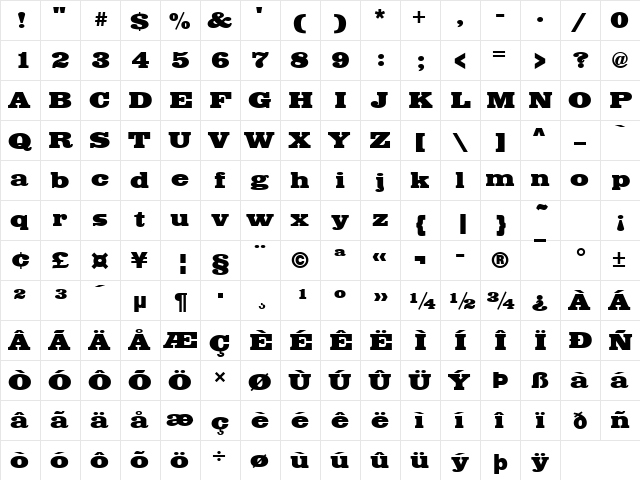
EgyptienneDBolExt Regular
Design Context for EgyptienneDBolExt Typeface
EgyptienneDBolExt is a composed and adaptable typeface that performs quietly and consistently across a wide range of design contexts.